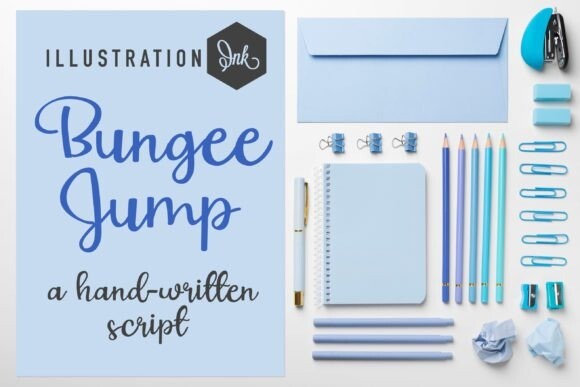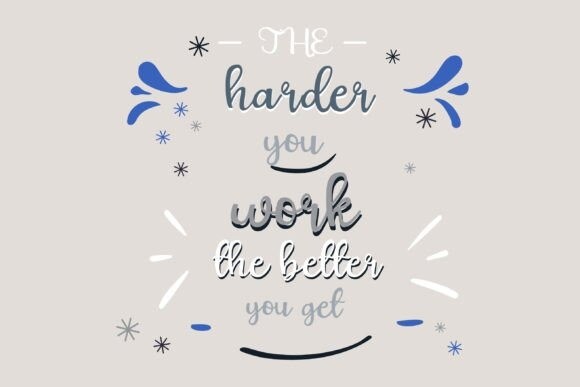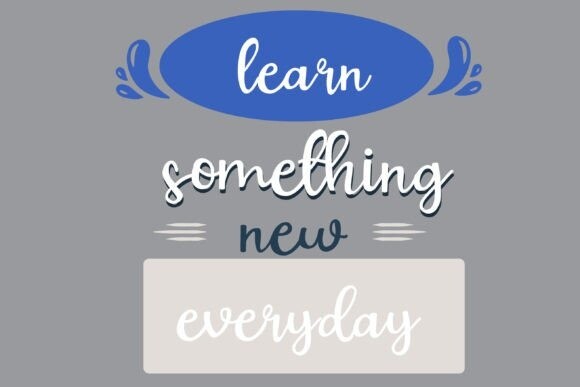
Bungee Jump Font
Bungee Jump Font- This hand-written script is a casual cursive with print-like uppercase. Offers gorgeous typographic perfect for many different projects such as logos & branding, invitations, stationery, wedding designs, social media posts, advertisements, product packaging, product designs, labels, photography, watermarks, special events, or anything that needs handwriting taste.